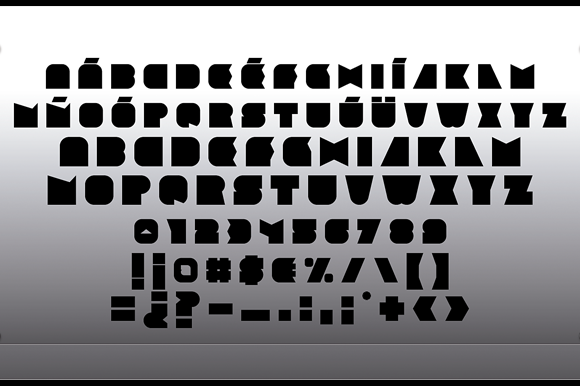
Amirox Font: A Striking Display Typeface by Carlos Daniel Matteoli
In the world of typography, a new font can make all the difference in the way a message is conveyed. The Amirox font, designed by Carlos Daniel Matteoli, is a striking display typeface that has been making waves in the design community. With its unique blend of elegance and edginess, Amirox is perfect for designers and crafters looking to add a touch of sophistication to their projects.
The Creator: Carlos Daniel Matteoli
Carlos Daniel Matteoli is a talented type designer with a passion for creating unique and functional fonts. With a keen eye for detail and a deep understanding of typography, Matteoli has been able to craft a font that stands out from the crowd. His inspiration for Amirox came from a desire to create a typeface that would be both elegant and bold, perfect for making a statement.
The Amirox Font: A Closer Look
Amirox is a sans-serif display typeface that features clean lines, sharp edges, and a distinctive flair. The font comes in a range of weights, from light to bold, making it versatile and suitable for a variety of applications. The characters are designed to be highly legible, even at small sizes, making it perfect for use in both digital and print media.
One of the standout features of Amirox is its unique letterforms. The font features a range of subtle curves and geometric shapes, giving it a distinctive and eye-catching feel. The uppercase letters are particularly striking, with their bold, angular lines and elegant curves. The lowercase letters, on the other hand, are more restrained, providing a nice balance to the overall design.
What Makes Amirox So Special?
So, what sets Amirox apart from other fonts on the market? Here are just a few things that make it special:
- Unique Design: Amirox has a distinctive look that sets it apart from other fonts. Its blend of elegance and edginess makes it perfect for designers looking to create something new and exciting.
- High Legibility: Despite its bold design, Amirox is highly legible, even at small sizes. This makes it perfect for use in a variety of applications, from business cards to billboards.
- Versatility: Amirox comes in a range of weights, making it suitable for a variety of applications. Whether you’re looking to create a bold headline or a more subtle body of text, Amirox has got you covered.
How to Use Amirox in Your Designs
Amirox is a versatile font that can be used in a variety of applications. Here are just a few ideas to get you started:
- Headlines and Titles: Amirox is perfect for creating bold, eye-catching headlines and titles. Its unique design and high legibility make it ideal for use in newspapers, magazines, and online publications.
- Logos and Branding: Amirox can be used to create striking logos and branding materials. Its unique design and versatility make it perfect for businesses looking to create a bold and memorable brand identity.
- Packaging and Advertising: Amirox can be used to create eye-catching packaging and advertising materials. Its bold design and high legibility make it perfect for use in billboards, posters, and flyers.
| Font Name | Amirox Font |
| Author | Qbotype Fonts |
In conclusion, Amirox is a striking display typeface that is sure to make a statement in any design project. With its unique blend of elegance and edginess, Amirox is perfect for designers and crafters looking to add a touch of sophistication to their work. Whether you’re looking to create bold headlines, striking logos, or eye-catching packaging, Amirox is the perfect font for the job.